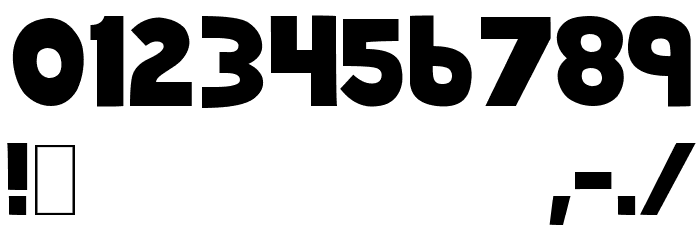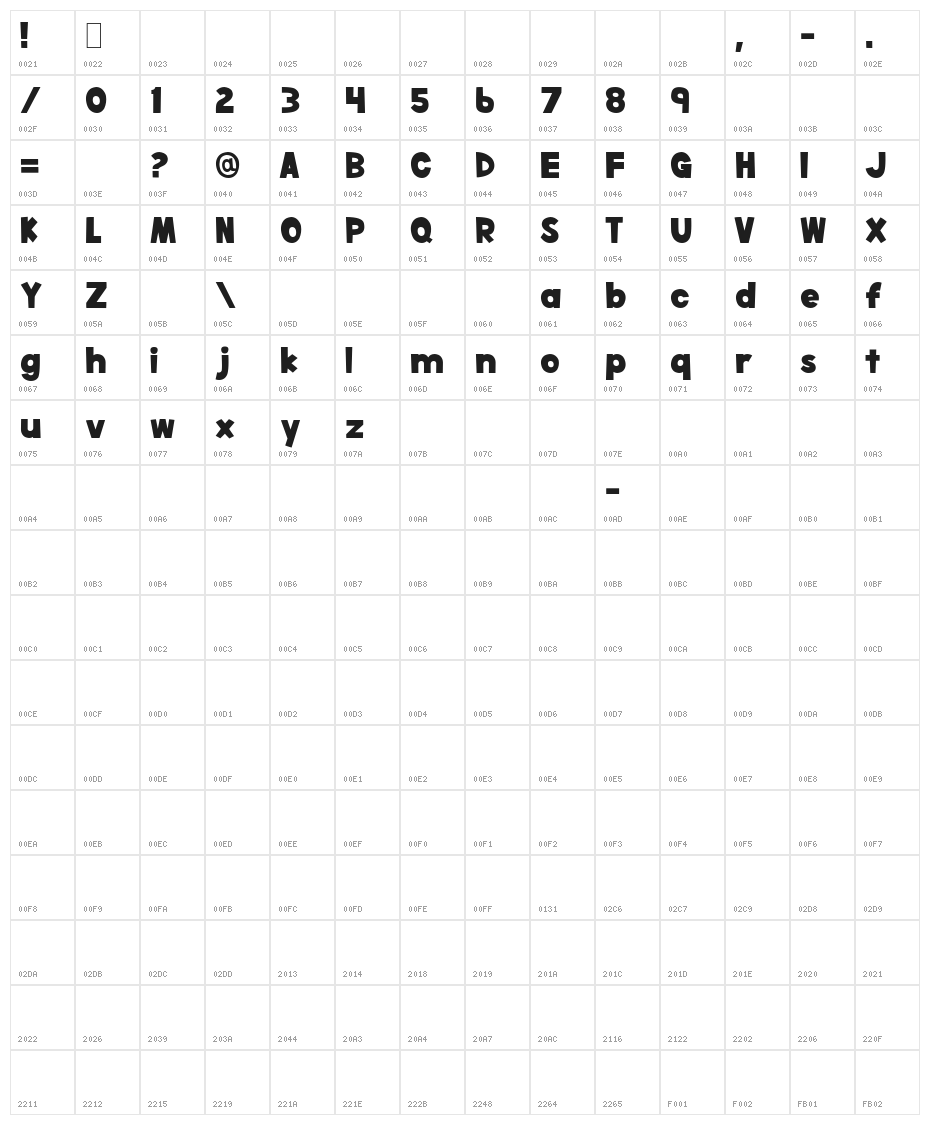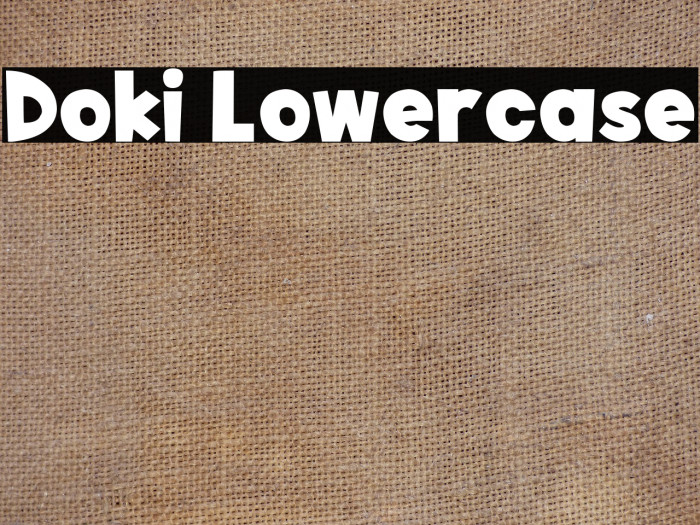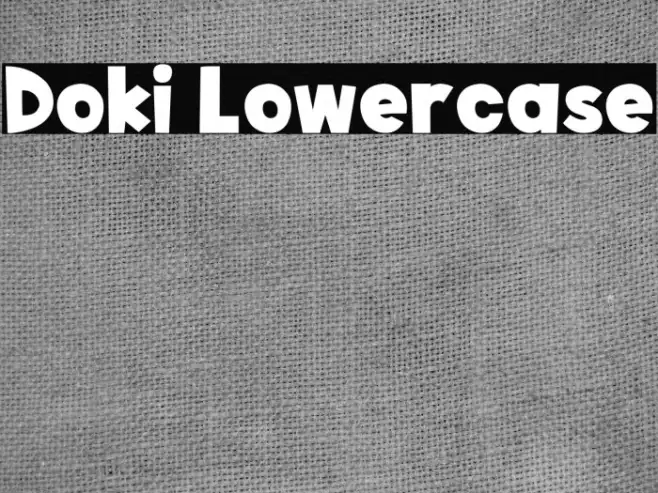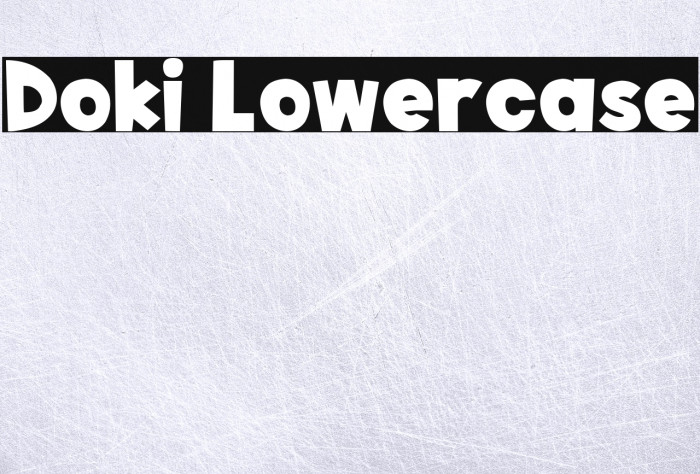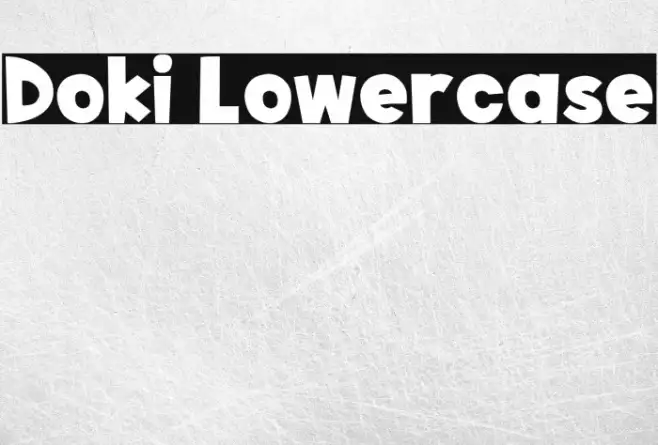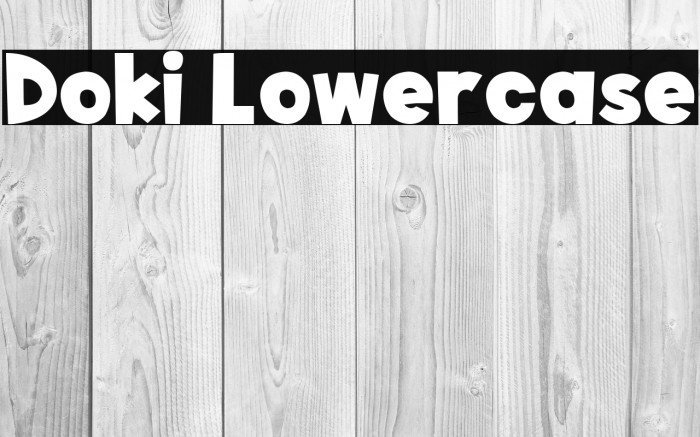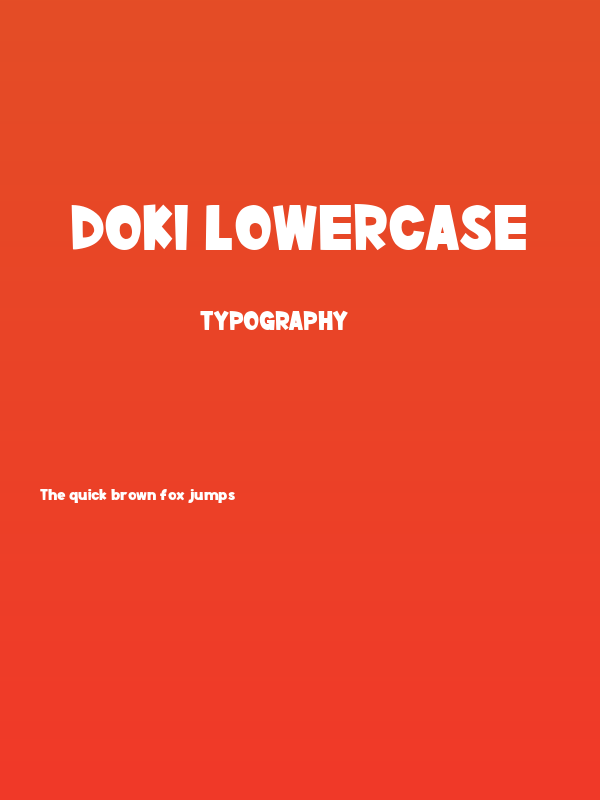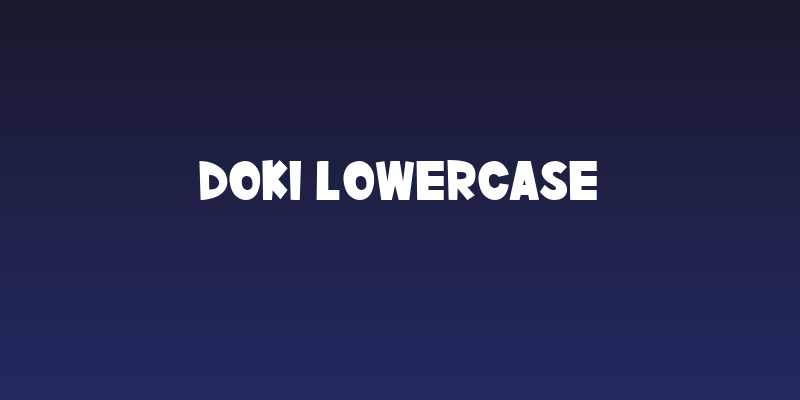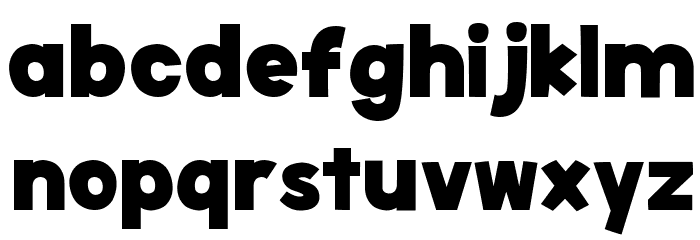
Doki Lowercase Font
Doki Lowercase Description
This font features bold, rounded characters that convey a playful and friendly vibe. The uppercase and lowercase letters maintain a consistent thickness, creating a uniform appearance across the alphabet. The numbers and special characters follow the same design principles, ensuring a cohesive look. The font's rounded edges and thick strokes make it highly legible and suitable for various applications. Its boldness and simplicity lend it a modern feel, while the rounded forms add a touch of warmth and approachability. This font is ideal for projects that require a strong yet friendly visual impact.
| Proposed Projects | Ideal for children's books, playful branding, posters, and social media graphics. |